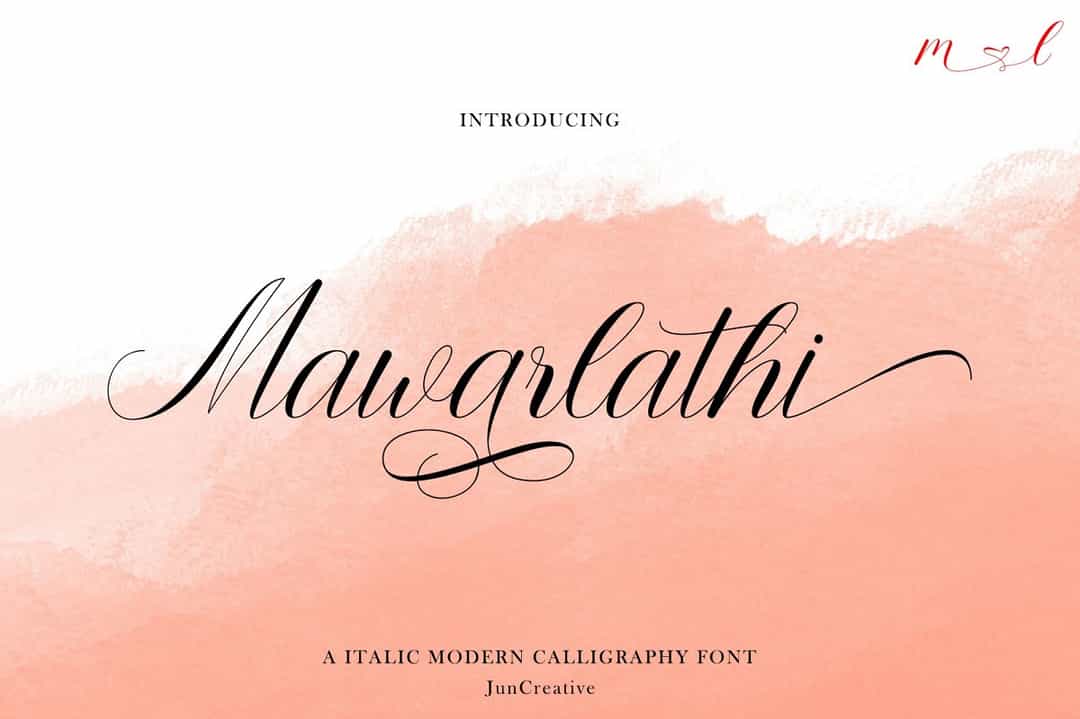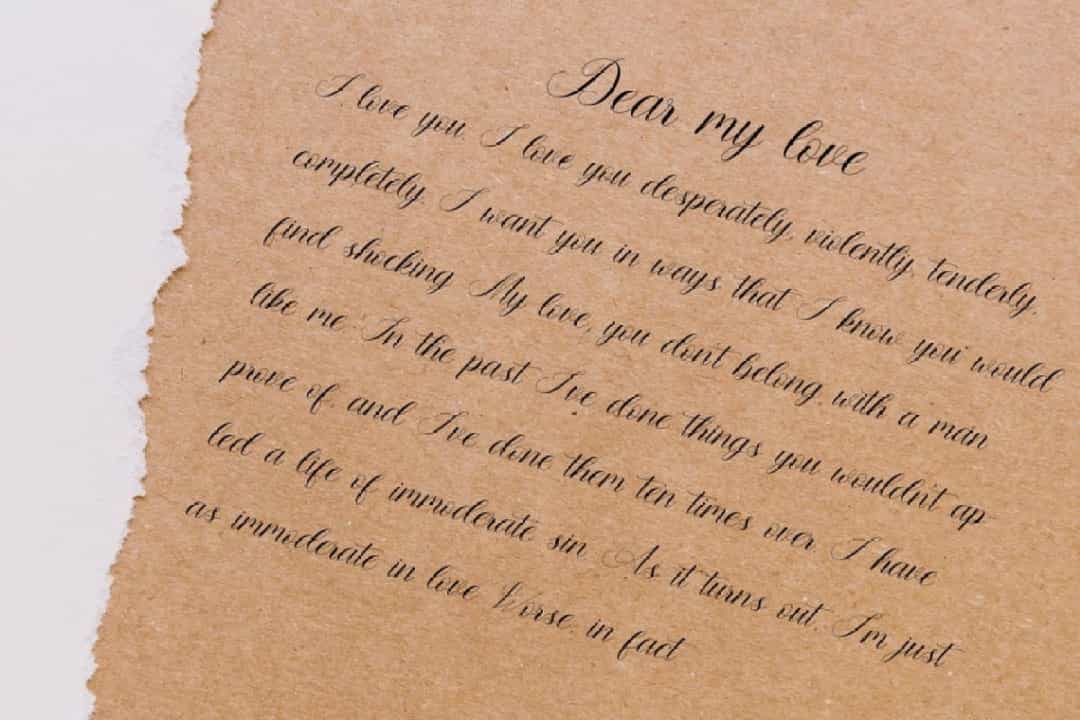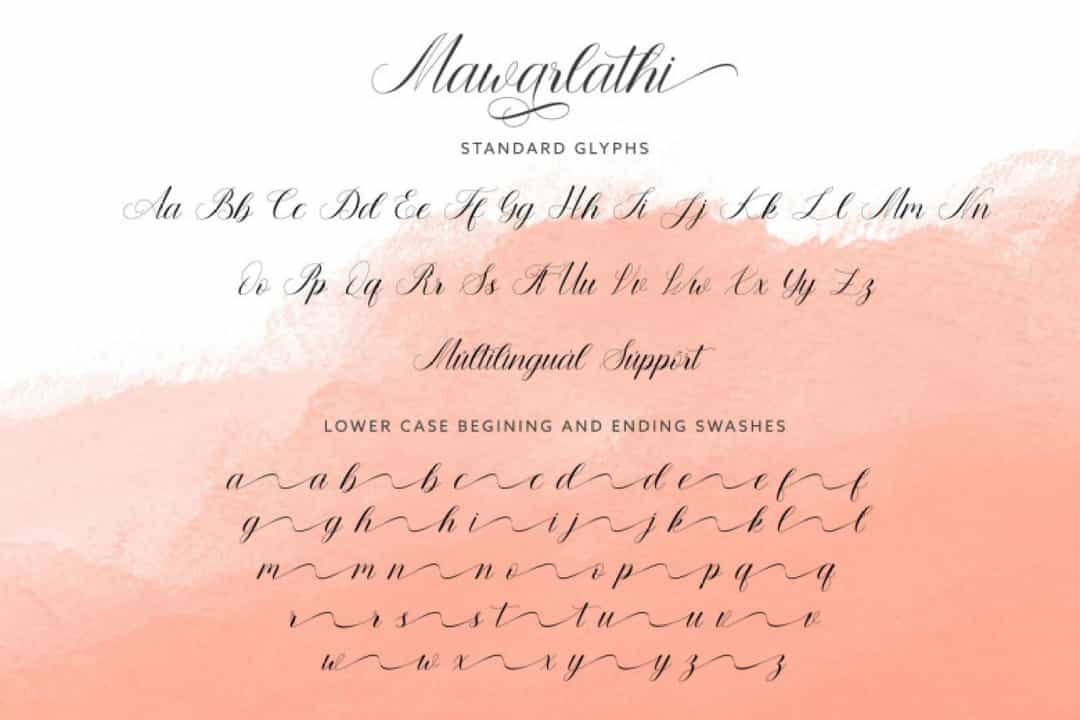
Discover Mawarlathi Font, part of the Calligraphy collection—a versatile and unique font perfect for adding a personal touch to your projects. Download it for free and enjoy crafting designs with style, from invitations to social media posts. This font is available exclusively for personal use, giving you the freedom to create without limits. Unlock your creativity with Mawarlathi Font today!
Mawarlathi Calligraphy font is both elegant and fun – ideal for wedding invites, thank-you cards and quotes, greeting cards and business cards, logos or any design needing custom work. PUA encoded, so all its glyphs, swashes and characters can be easily accessed!